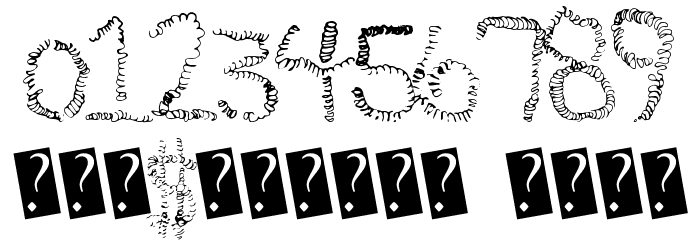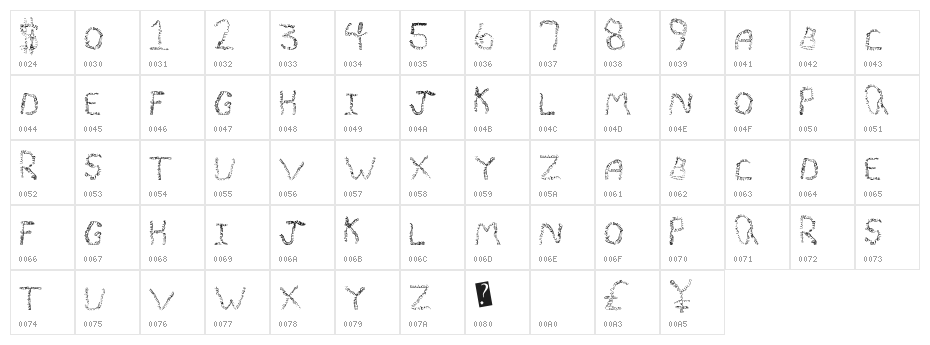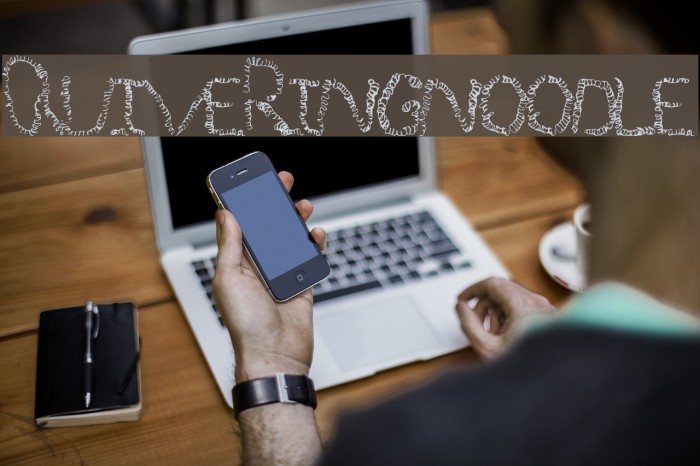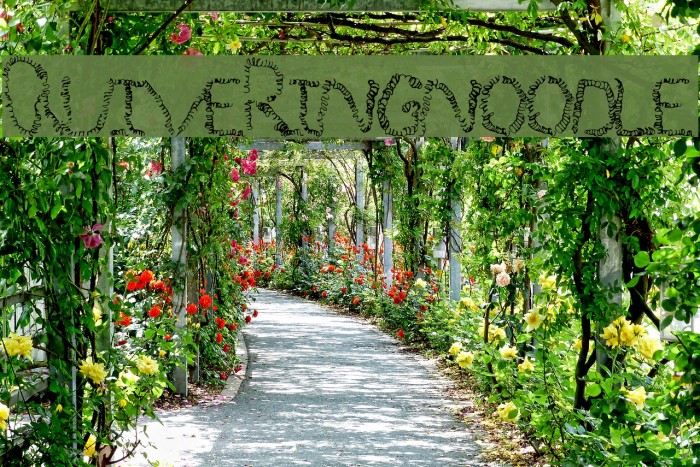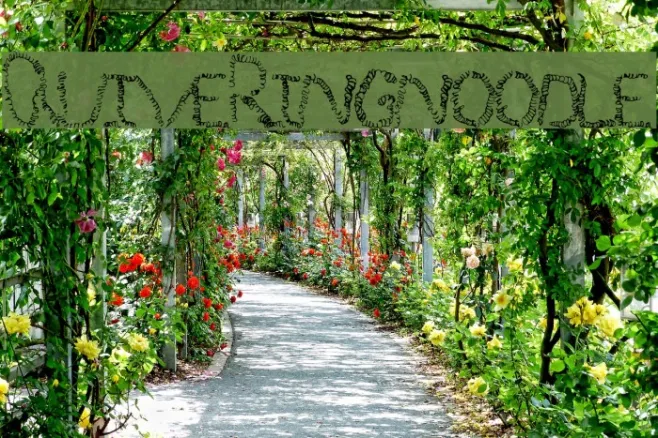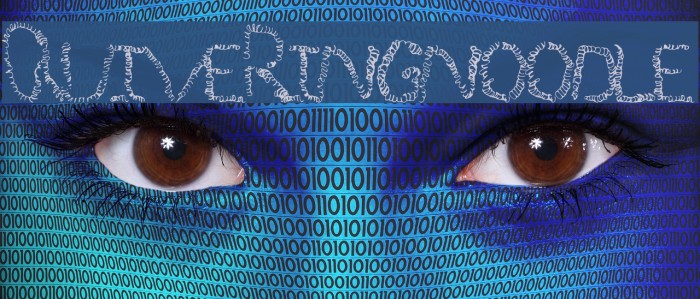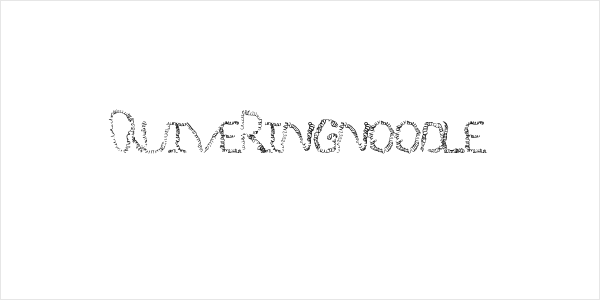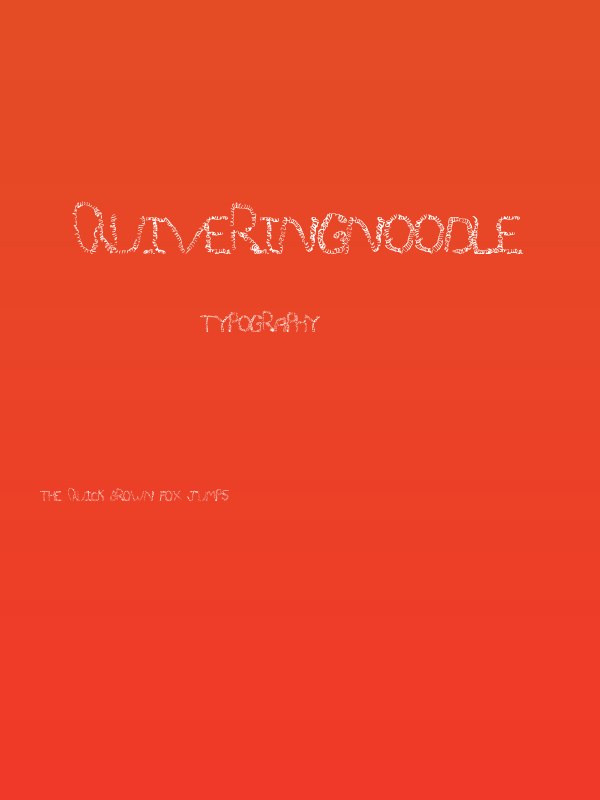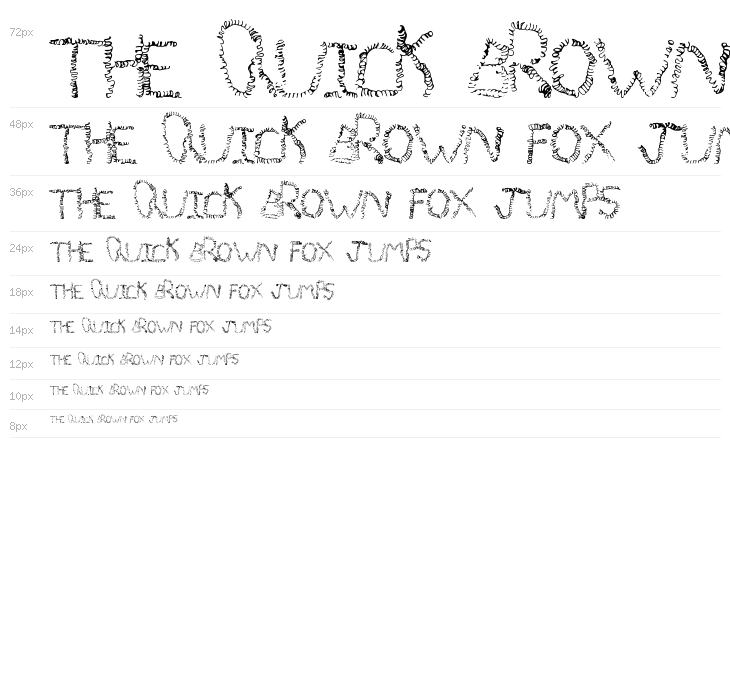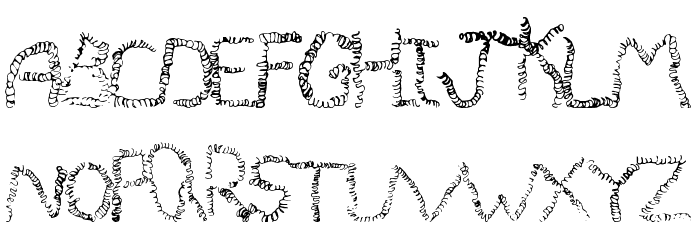
QuiveringNoodle Font
QuiveringNoodle Description
This font features a whimsical and playful design, characterized by its curly, noodle-like strokes that give each character a sense of movement and energy. The letters are composed of a series of loops and swirls, creating a textured appearance that is both unique and eye-catching. The font maintains a consistent style across uppercase, lowercase, and numerical characters, with each element appearing as if it is quivering or vibrating. This distinctive style makes it stand out, offering a fun and creative option for various design projects.